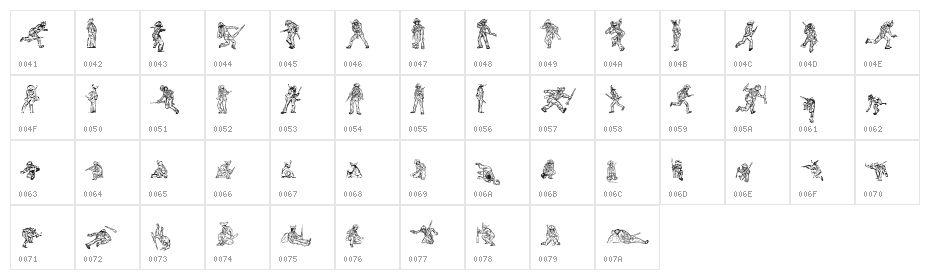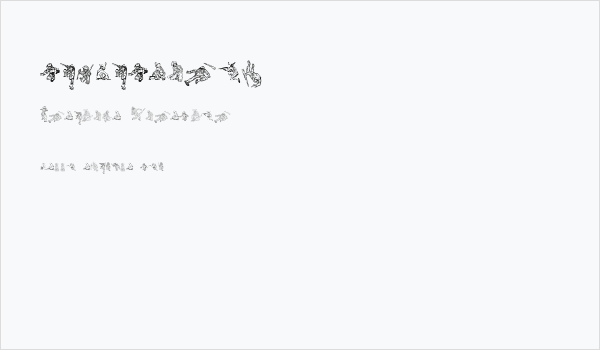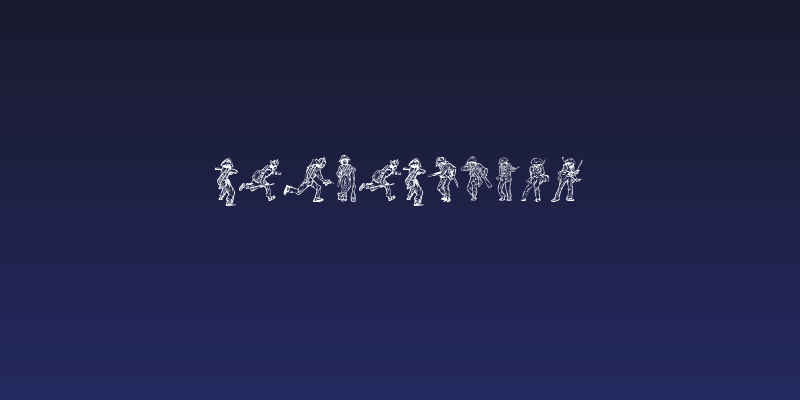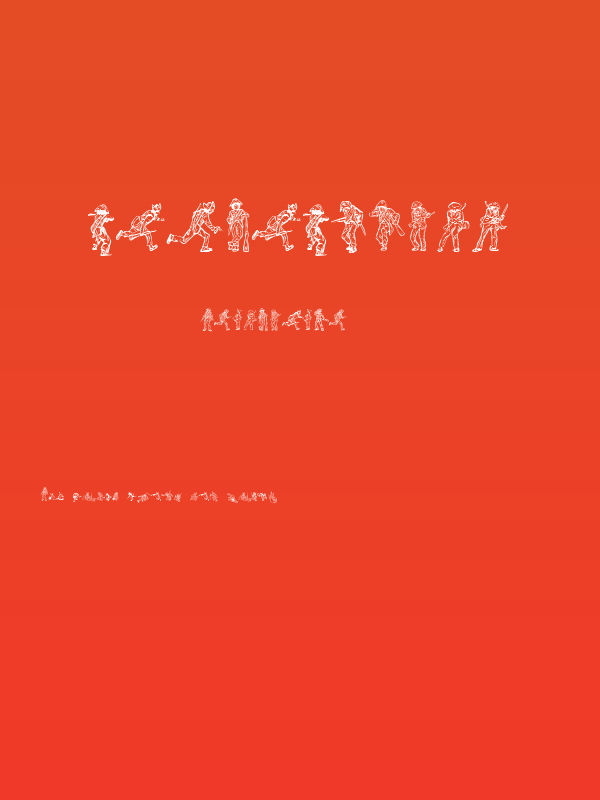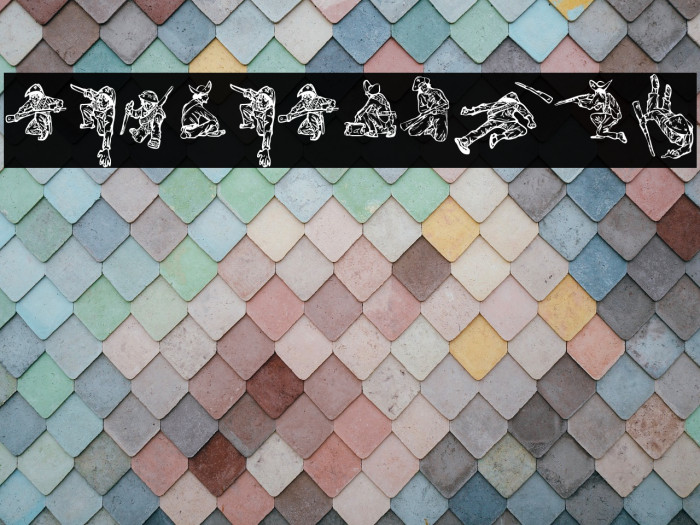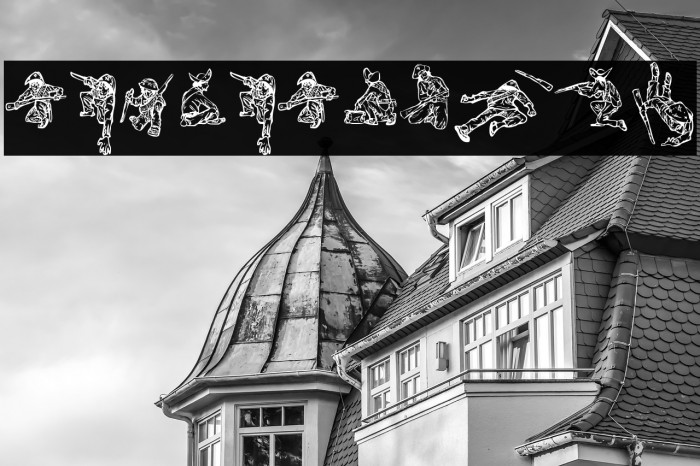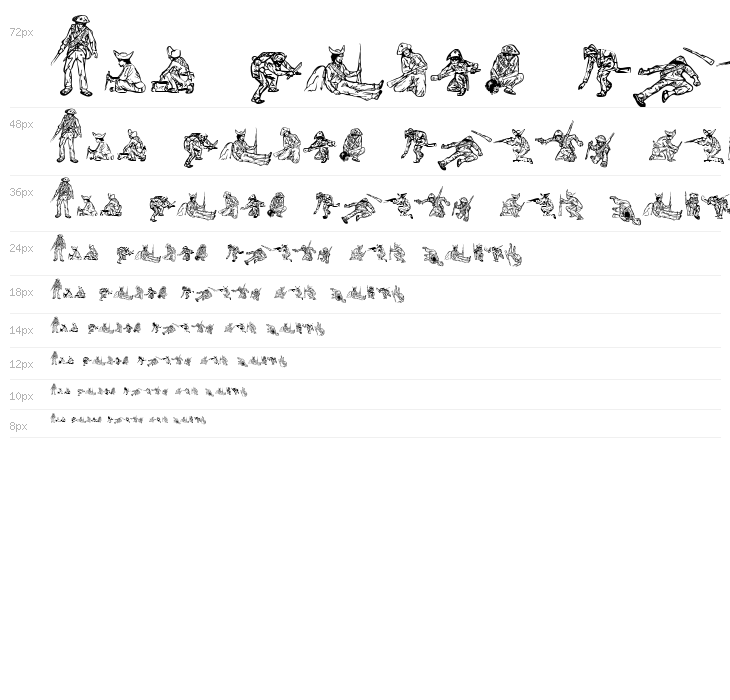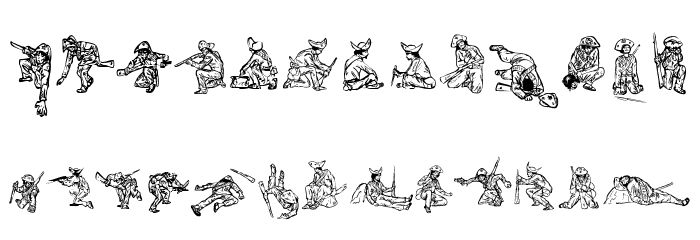
cangaceiros Font
cangaceiros Description
This is a highly decorative display font where each character is represented by a detailed illustration of a cangaceiro, a historical Brazilian bandit figure, in various poses and actions. The glyphs are hand-drawn and intricate, making each letter unique and visually complex.
| Overall Style | Decorative, Illustrative, Thematic |
| Use Case | Headlines, Posters, Artistic projects, Themed graphics |
| Proposed Projects | Posters, cultural event branding, book covers, themed merchandise, editorial illustrations. |